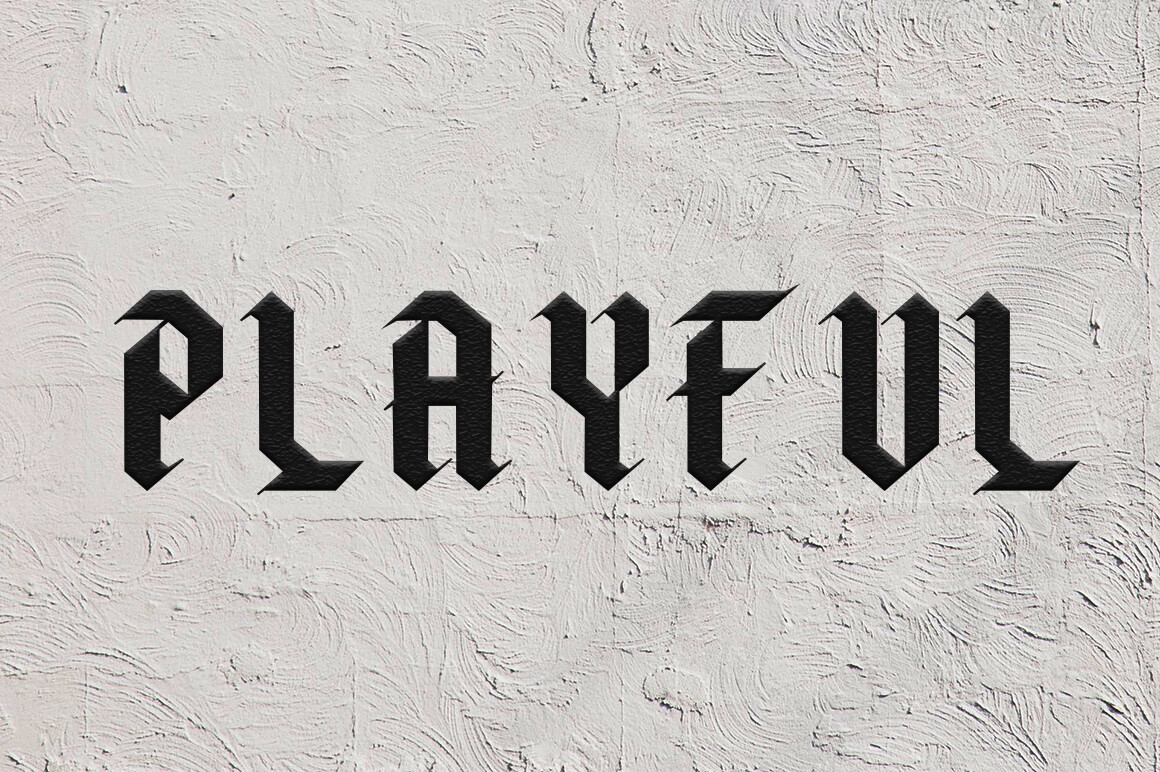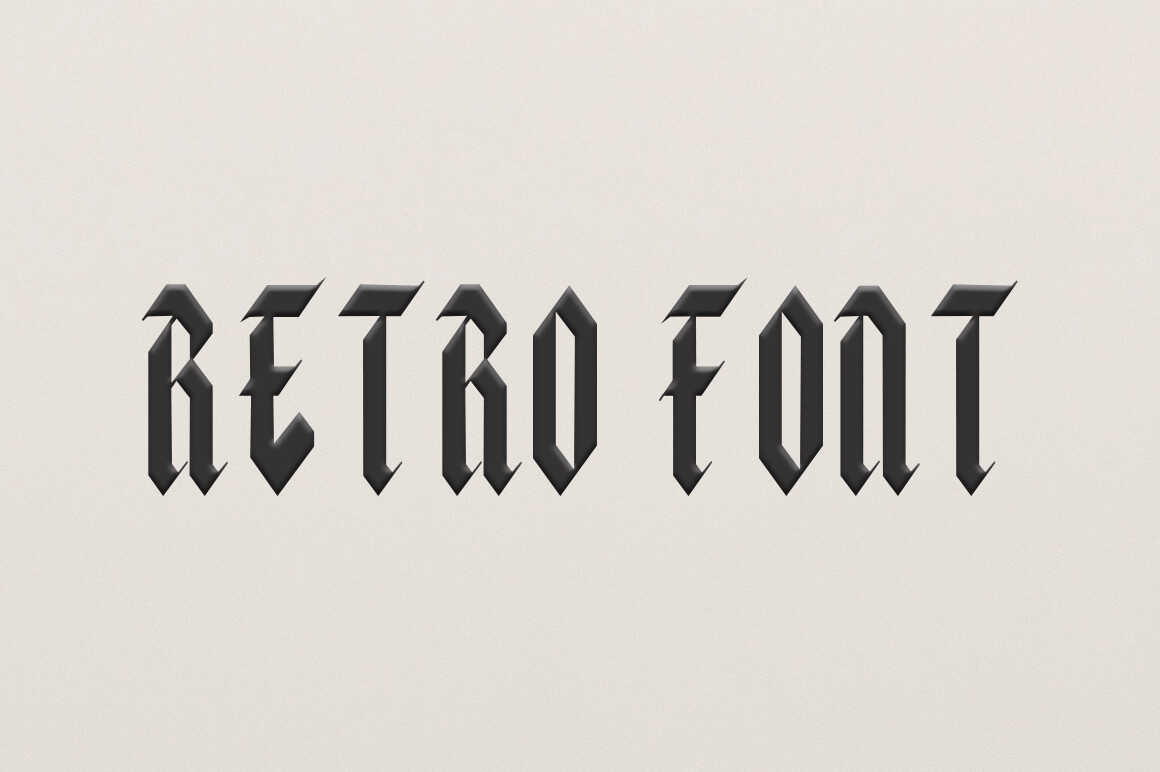
Monkey Font
About Monkey Font
Monkey is a stylish and bold blackletter font that offers beautiful typographic harmony for a diversity of design projects, including logos and branding, social media posts, advertisements or product designs.